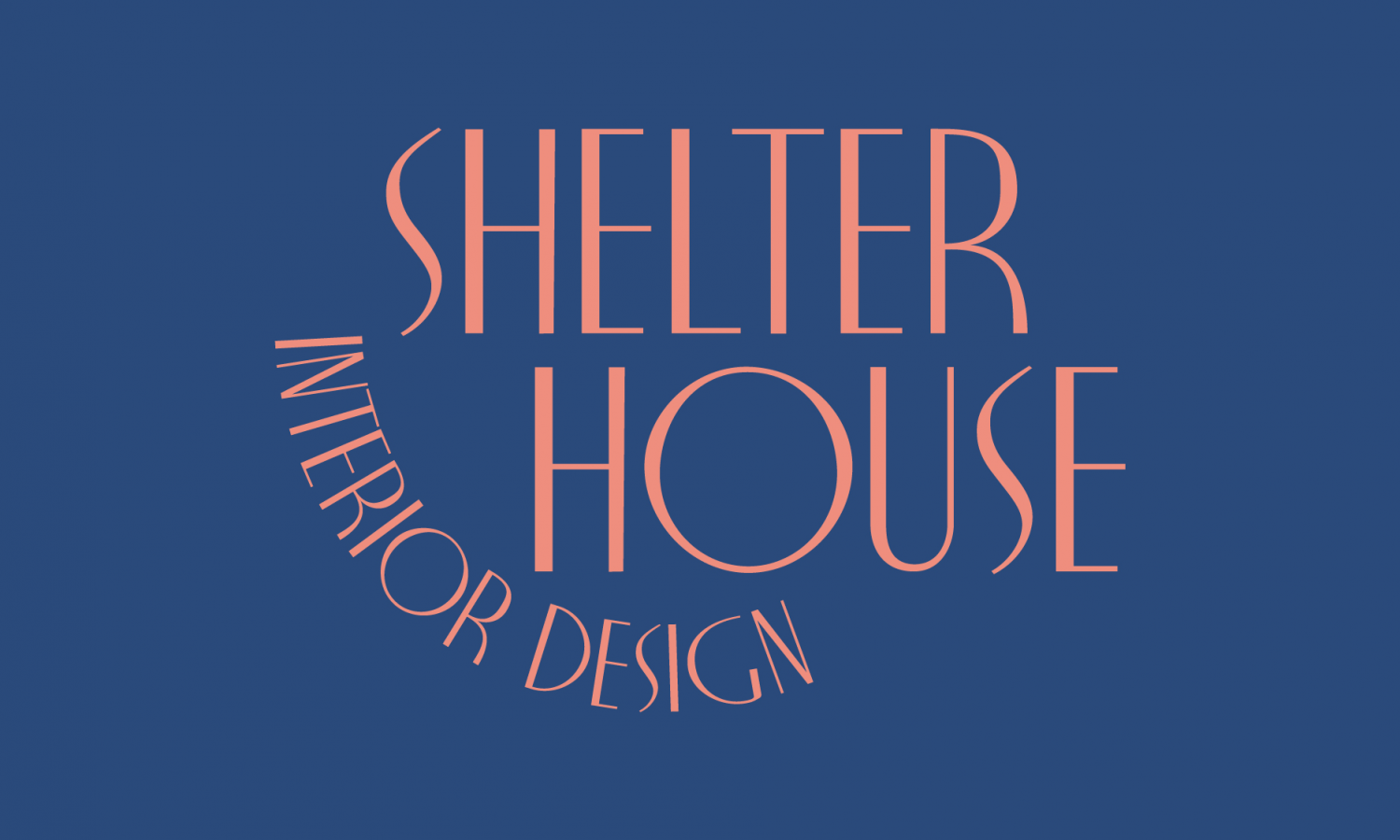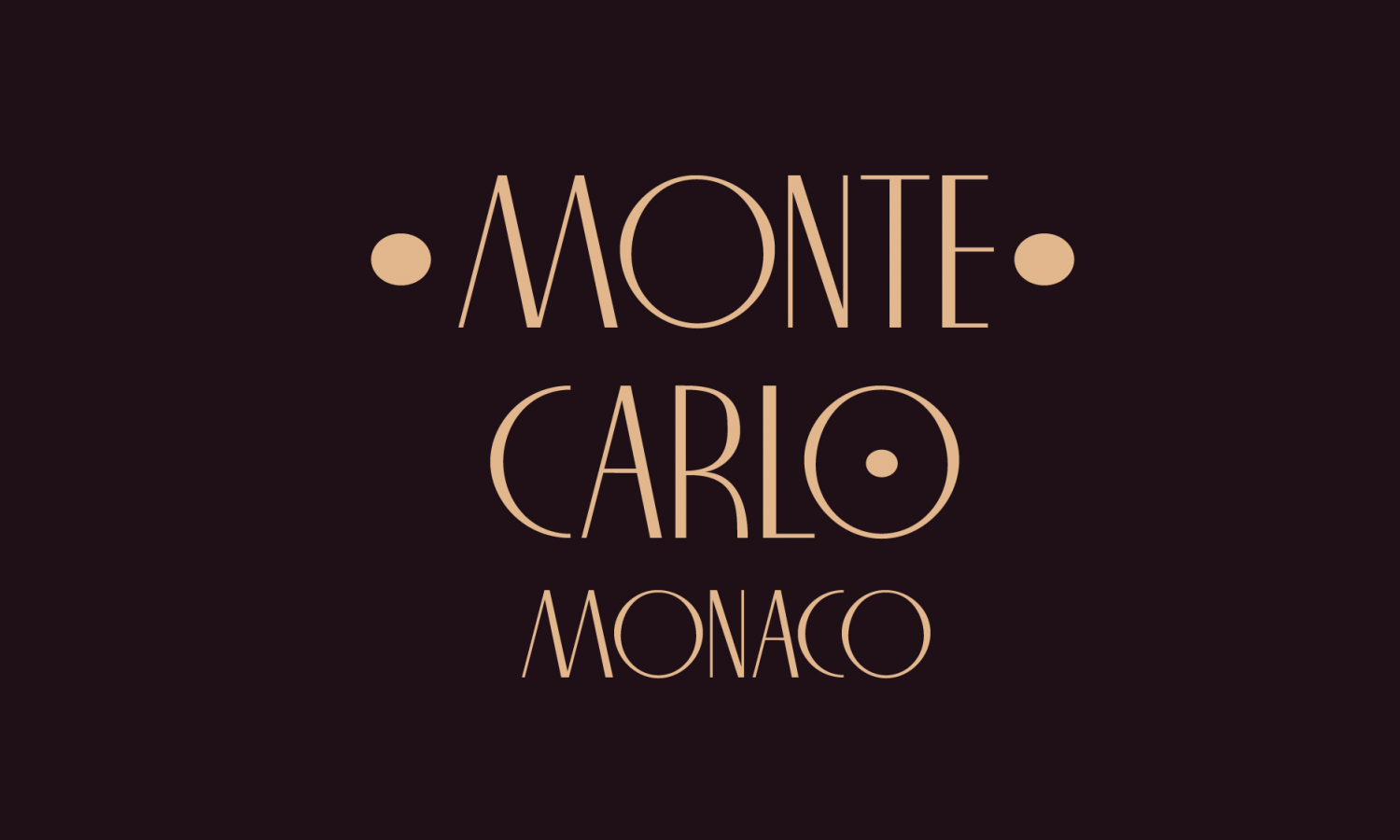
Nocturne
Buy NowThe font is based on an alphabet from a mid1920s art deco book. The original seemed to have tapering strokes but it was too small to be sure; I made all strokes parallel & orthogonal and slightly modified the original in a number of other ways to bring it into the 21st Century. The designers of the original were Paul Carlyle and Guy Oring.
Nocturne has all the elegance of the Deco fonts of the 1930s. It recalls the romantic, sophisticated Zeitgeist of the early 20th century, that nostalgic time ?between the wars?.
Nocturne comes in two styles:
Nocturne Regular, which uses the Art Deco convention of small x height, and long ascenders. This style is perfect for headers, posters, labels etc.
Nocturne Book, which, with its higher x height and slightly wider characters, is extremely legible and suitable for small size text.